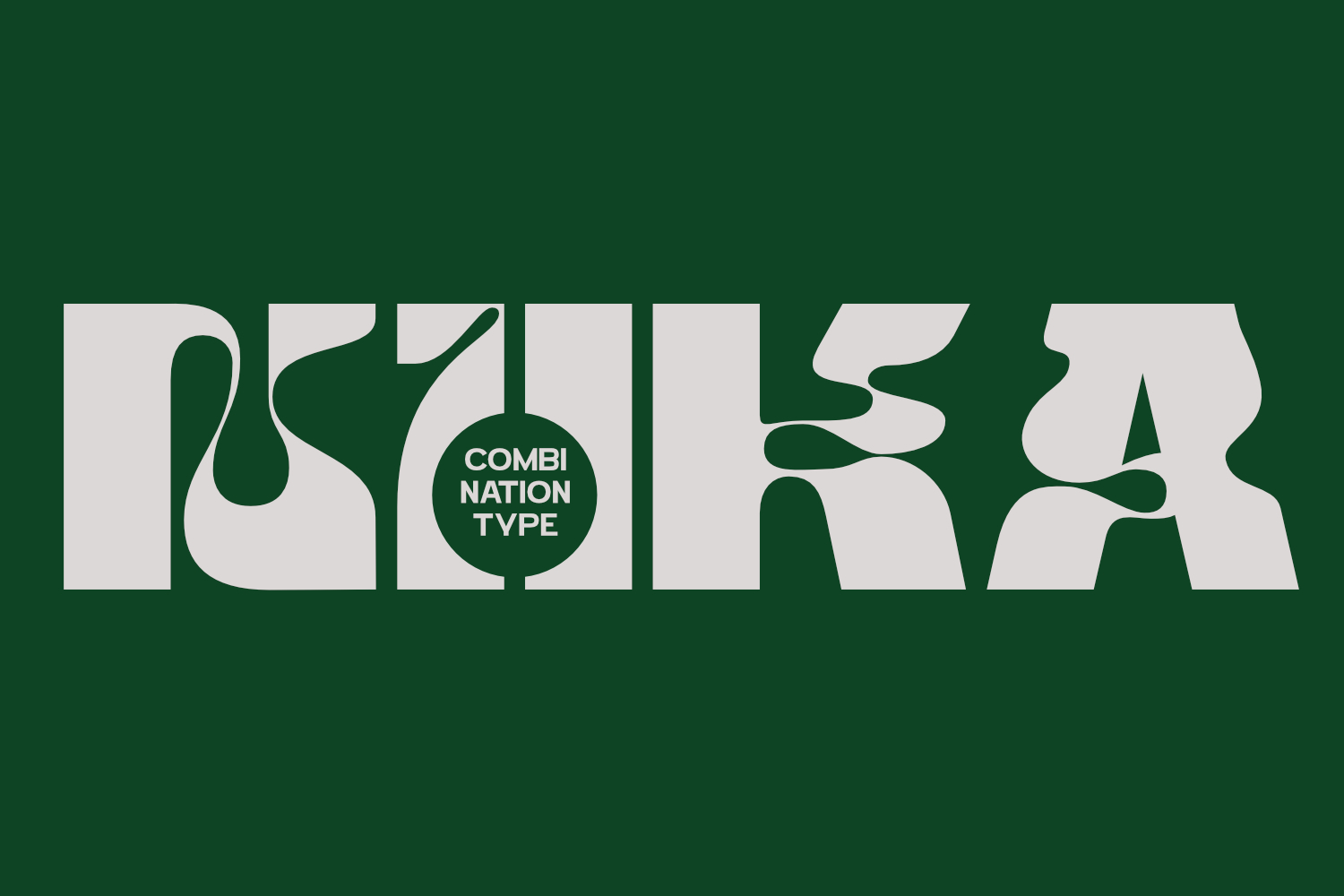
NIIKA - Combination Font
NIIKA
Font with different shapes but are harmonious when used and do not affect readability, making it easier for users to explore the design. This font also comes with 75+ multilingual support suitable for your design needs such as poster design, branding, books, magazines, social media, logo design, etc.
• Combination